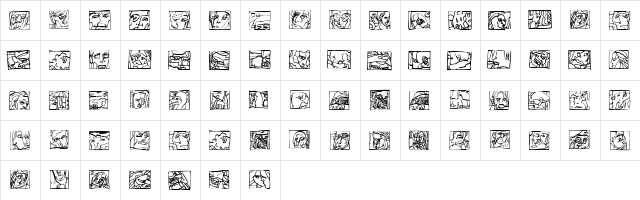
Fazzes_2 Regular
| Designer | Joan M. Mas |
Design Context for Fazzes_2 Typeface
Fazzes_2 is a composed and adaptable typeface that performs quietly and consistently across a wide range of design contexts.